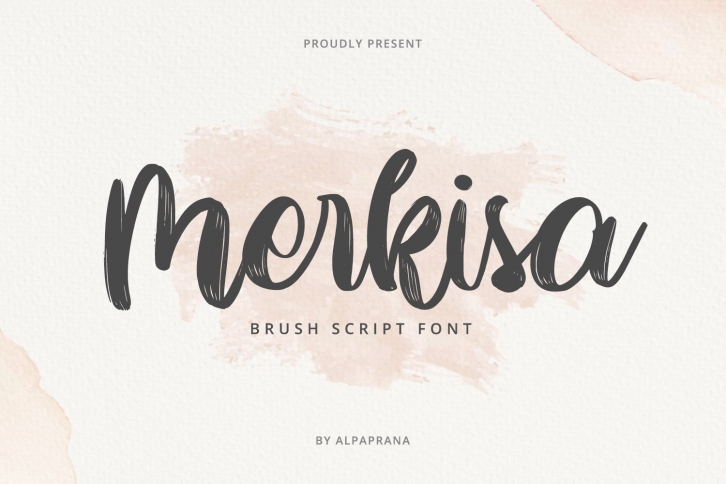
Merkisa is a beautiful font that was designed by Alpaprana Studio. It's a great choice for designers and creatives who need such a font. It was released on October 25, 2021 and the file size is 15.93 MB. Merkisa may give a more youthful, expressive and casual look to your project. It is a very beautiful, refined, elegant, and high-quality font.